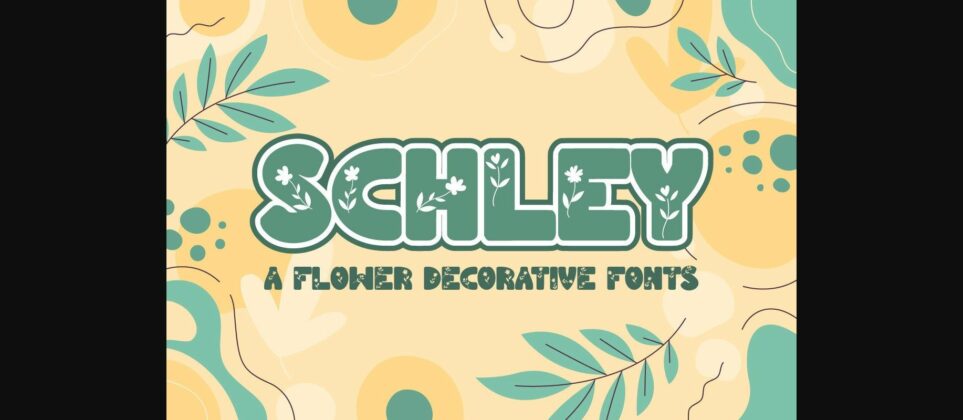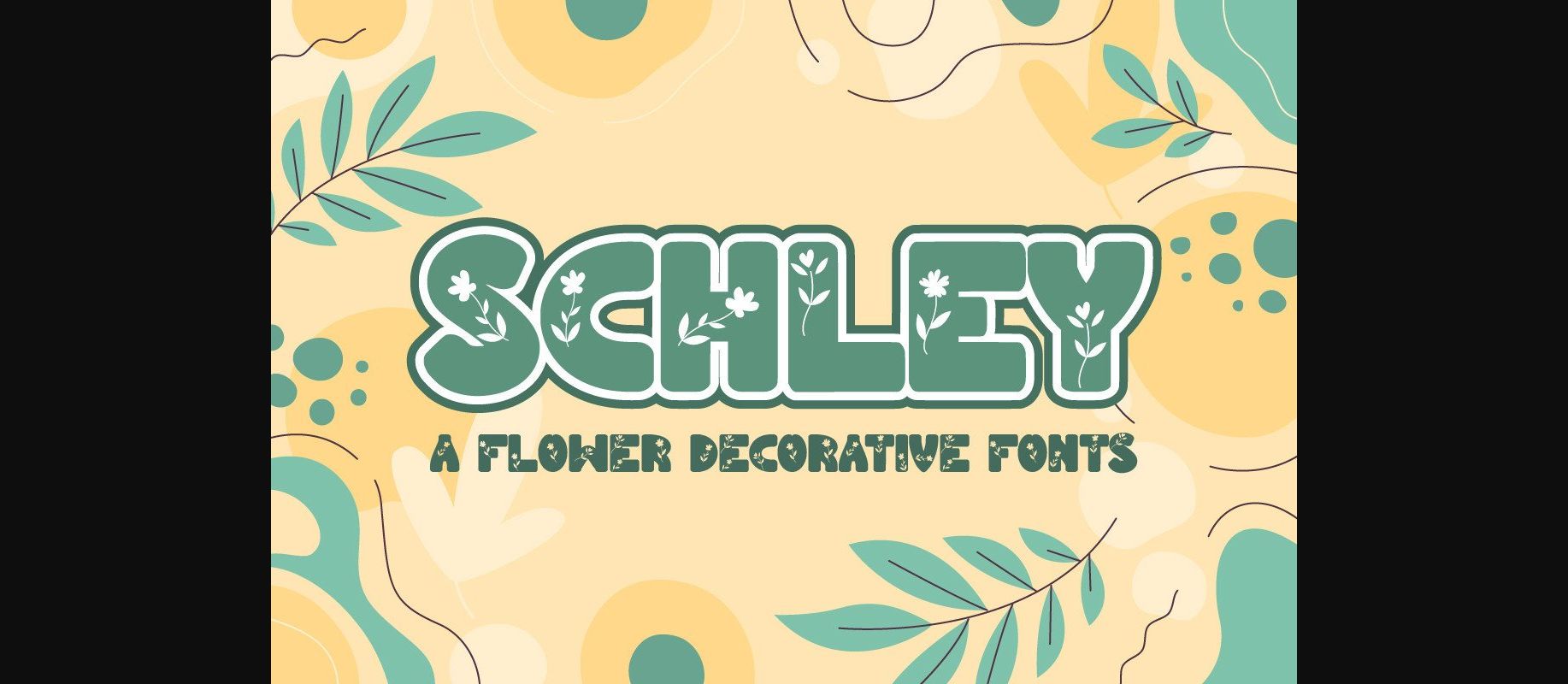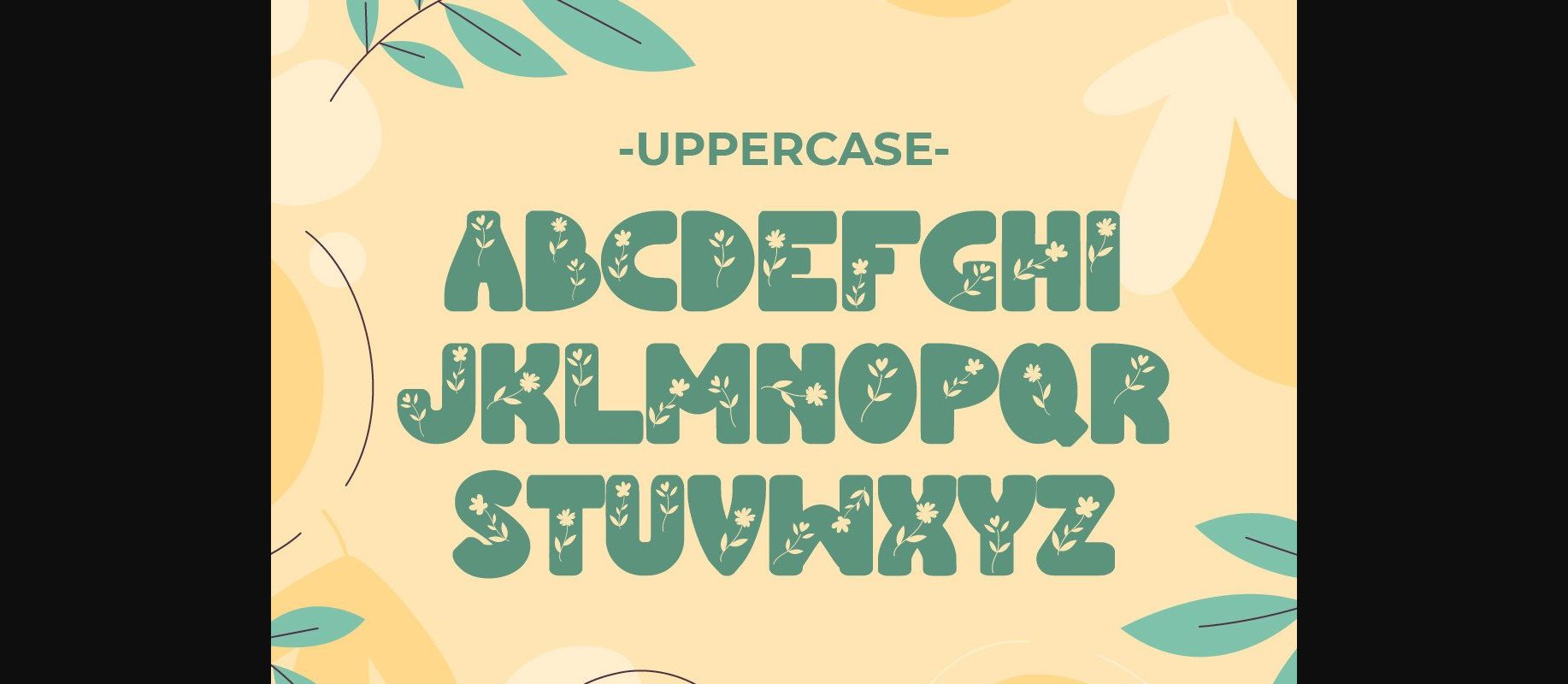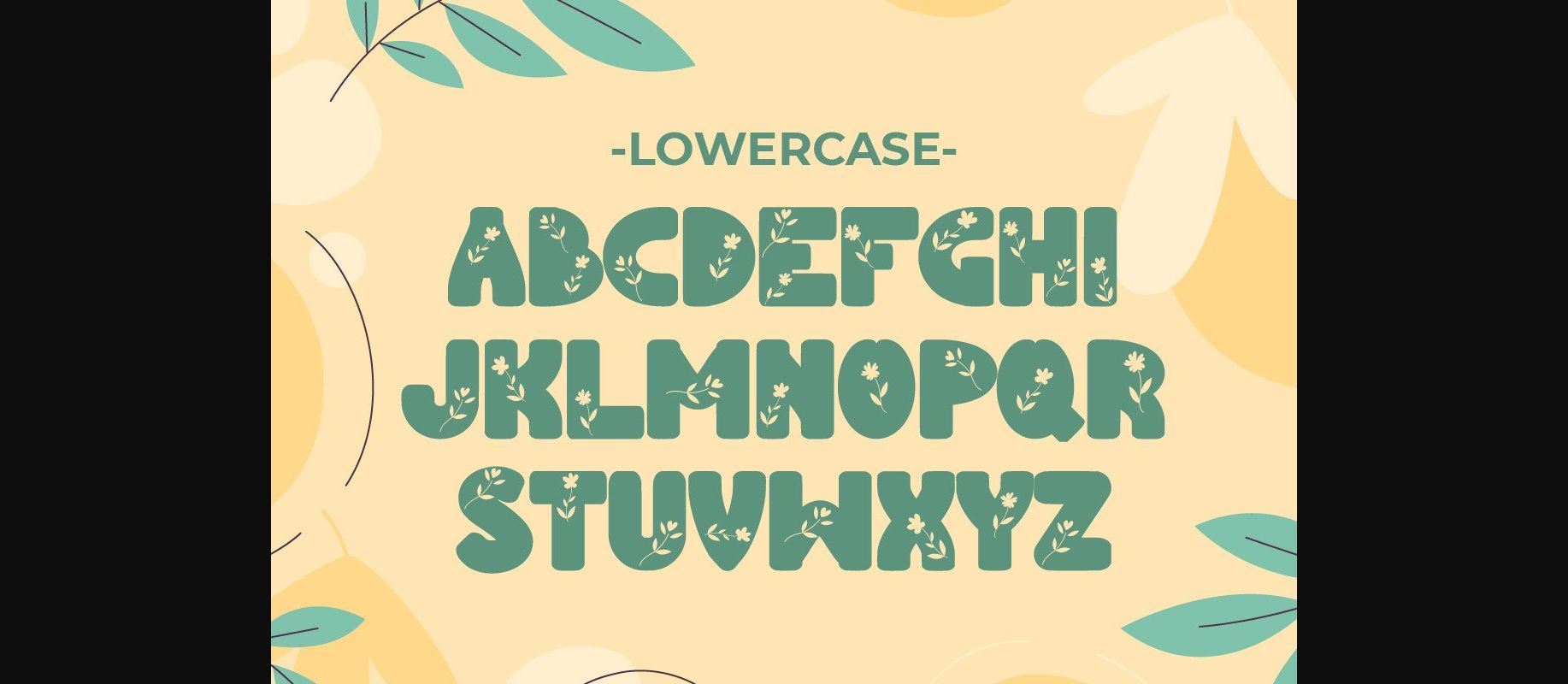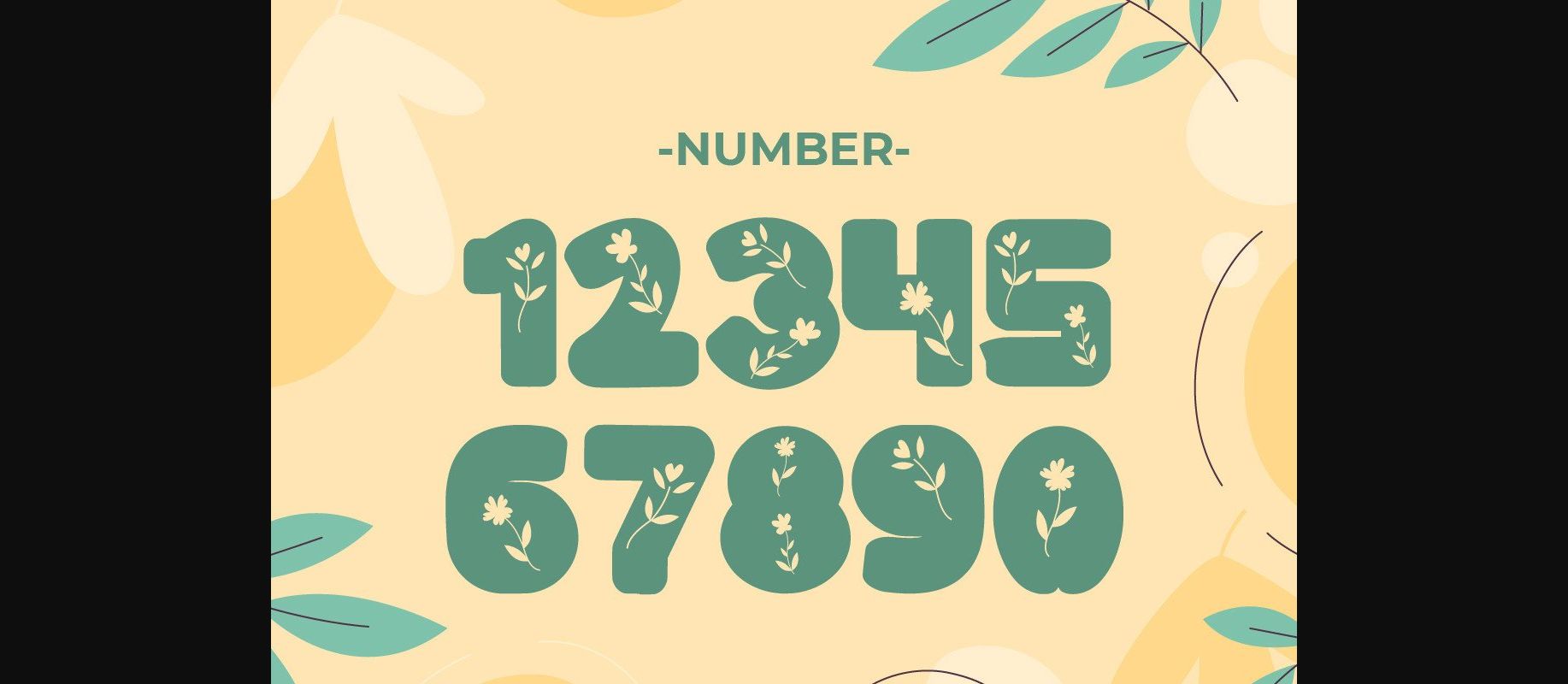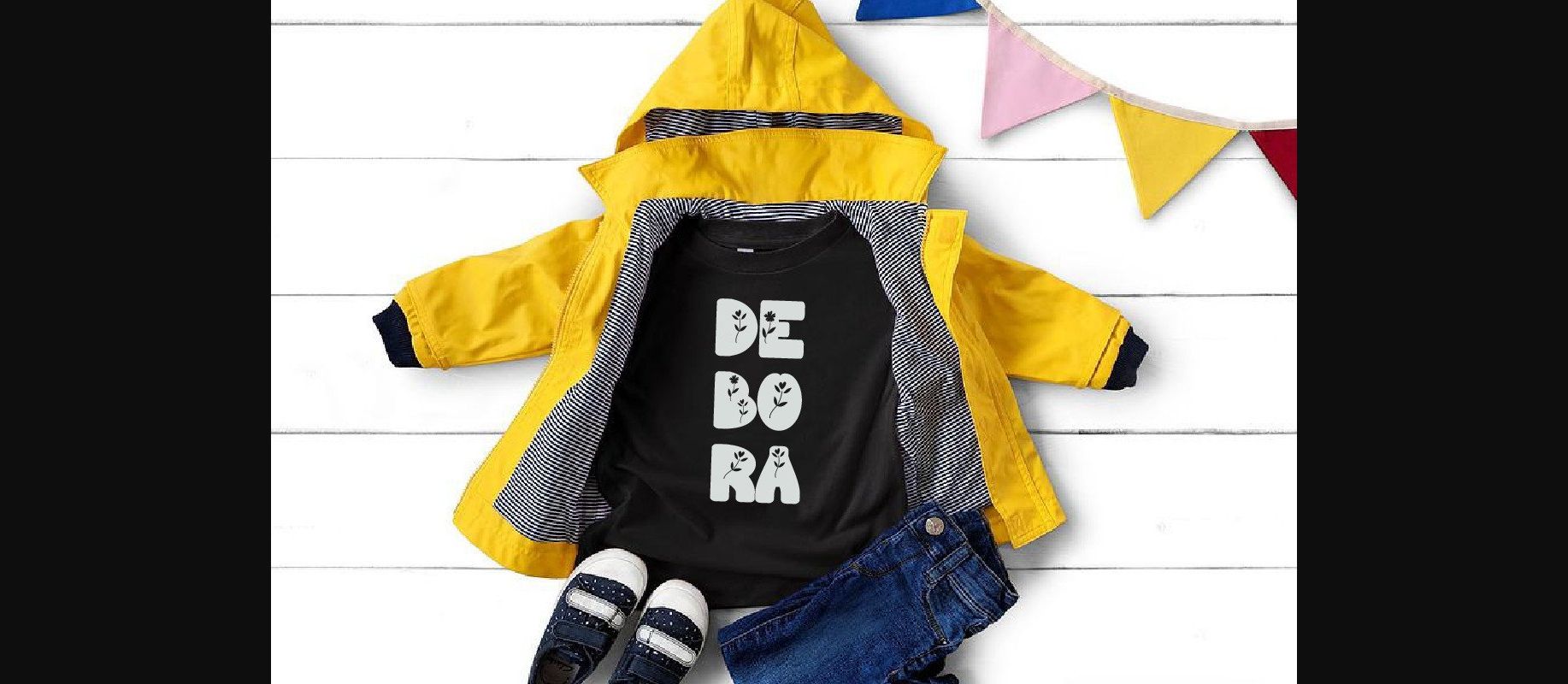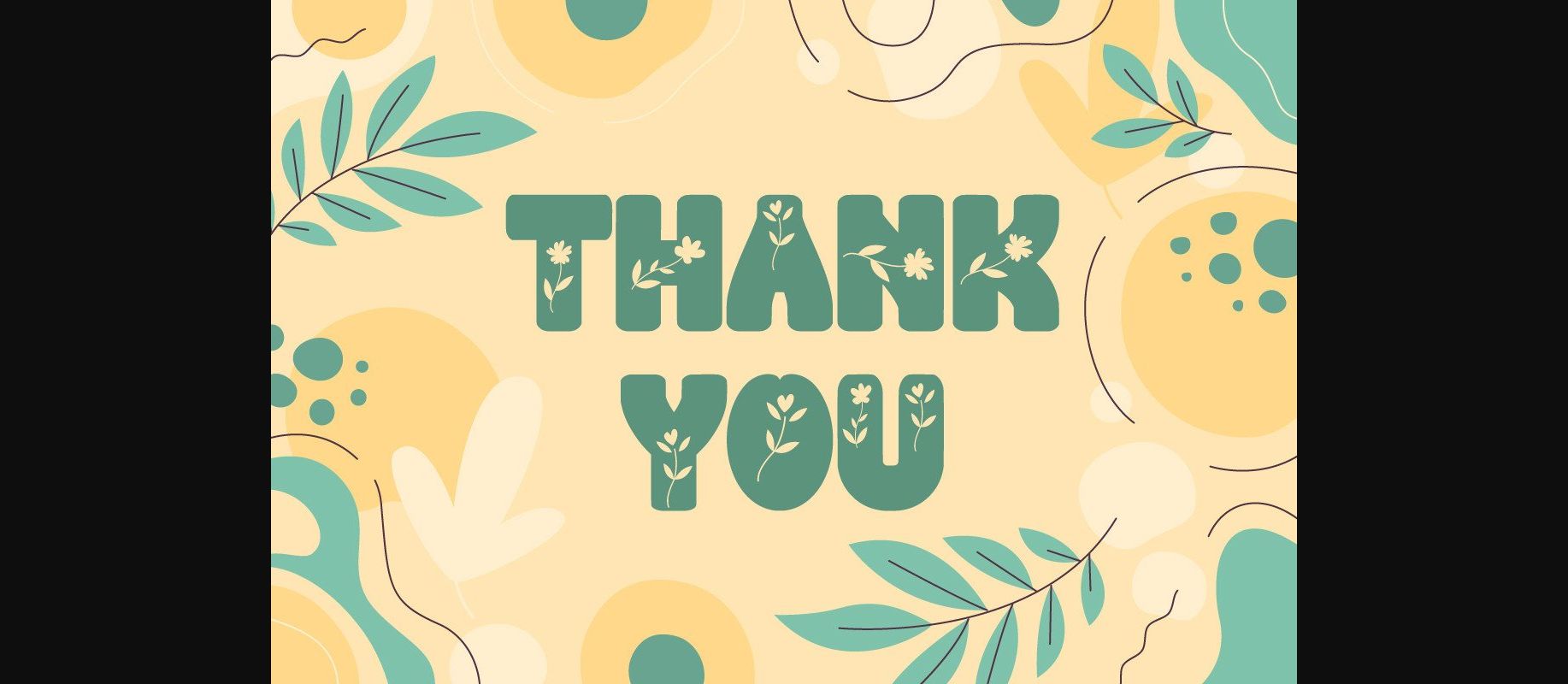
Schley Font
About Schley Font
Schley is a cute and adorable decorative font. With its lovely botanical ornaments, Schley has the potential to become your favorite go-to font, no matter the occasion!